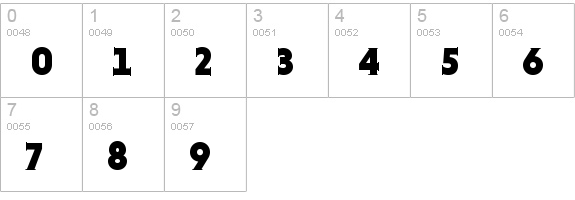
Niveau Serif Black is a maximum-weight, dramatic variant in the Niveau typeface family \xE2\x80\x94 well suited to maximum-impact headlines, posters, and packaging.
Niveau Serif Black is a bold and commanding typeface that exudes elegance and sophistication. With its strong, thick strokes and sharp serifs, this font makes a powerful statement in any design project. Whether used for headlines, titles, or branding, Niveau Serif Black demands attention and leaves a lasting impression. The best part? Niveau Serif Black is available for free download at FontsMarket.com. This means you can easily access and use this stunning font in your projects without any cost. Don't miss out on the opportunity to enhance your designs with the striking beauty of Niveau Serif Black. Download it today and elevate your typography game to new heights.